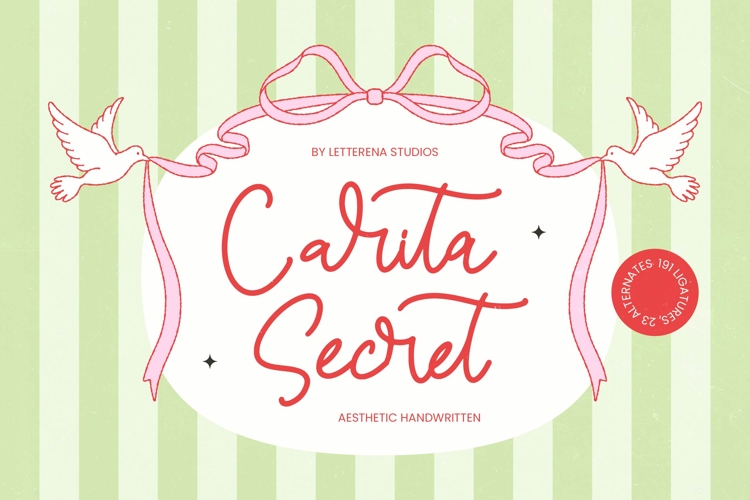
Carita Secret - Aesthetic Handwritten
Elevate your creative vision with the timeless charm and sophisticated flow of Carita Secret - Aesthetic Handwritten. This font embodies a delicate balance of artistic flair and modern elegance, offering a monoline script that feels both intimate and professional. The fluid connections and organic rhythm of Carita Secret - Aesthetic Handwritten ensure that every design project exudes a sense of bespoke craftsmanship and high-end appeal.
Master the art of luxury branding and visual storytelling with a typeface designed to captivate. Carita Secret - Aesthetic Handwritten is perfect for premium packaging, high-fashion editorial layouts, and sophisticated wedding stationery. Whether you are developing a boutique logo or curated social media content for a beauty brand, its graceful silhouette provides the authentic human touch necessary to elevate a brand's identity in a competitive marketplace.